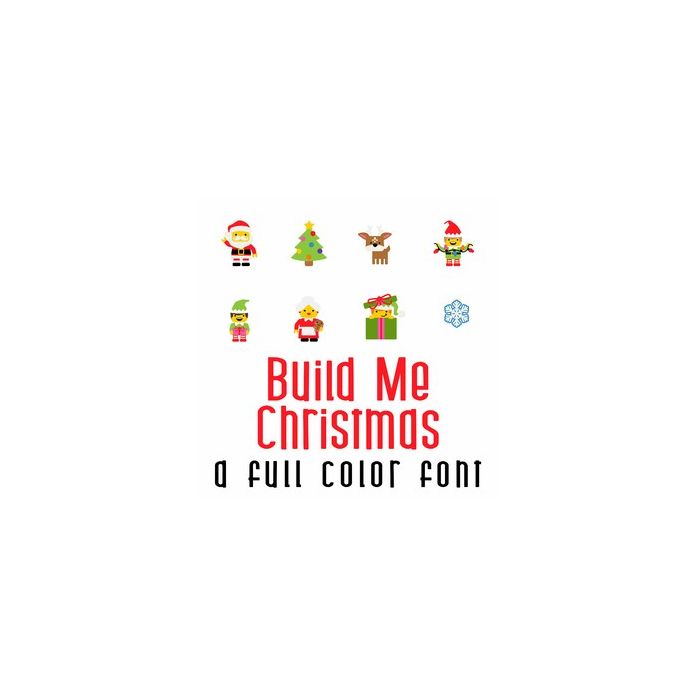
This adorable full-color doodlebat font features 26 Christmas-themed minifigures and building objects. Perfect for cards, crafts, gifts, decor, scrapbook pages, planner stickers, and more!